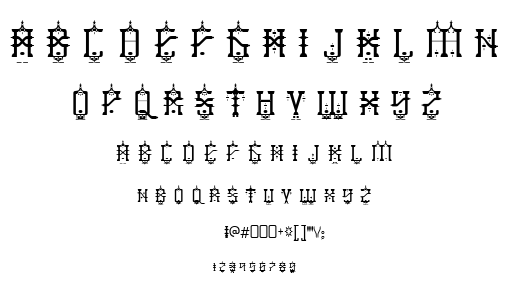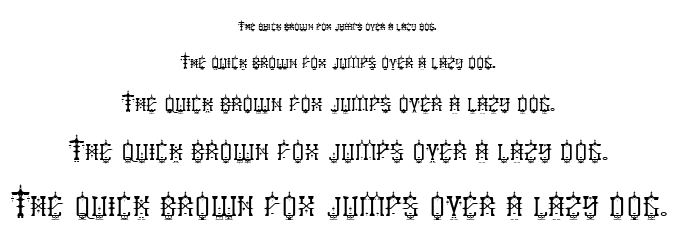
Baby Jeepers is a modular, ornamental small caps headliner inspired by lettering on ancient Martian temples. Don’t forget to read the files inside the zip for details. Updated in 2012.